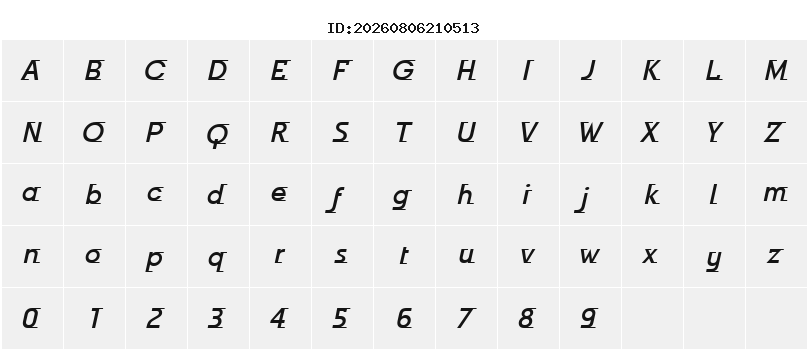
• Font Name: Odyssee Md ITC TT
• Font Style: MediumItalic
• Font ID: Odyssee Md ITC TT Medium Italic
• Full Font Name: Odyssee Md ITC TT MediumItalic
• PostScript Name: OdysseeMdITCTTMediumItalic
• Character Count: 252
About Odyssee Md ITC TT.ttf
Odyssee Md ITC TT.ttf is a modern, elegant sans-serif font designed for ultimate readability and visual harmony. Perfect for branding, headlines, web design, and print materials.